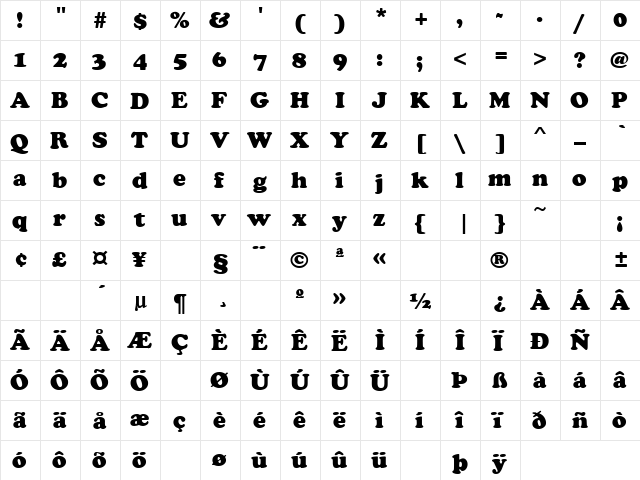
Poverty 10 Regular
Design Context for Poverty 10 Typeface
Poverty 10 offers clean, dependable letterforms without strong stylistic allegiance, making it a practical choice for designers who need flexibility.
Pro Tip: Use Poverty 10 in both headline and body roles to test its range before committing to a single application.